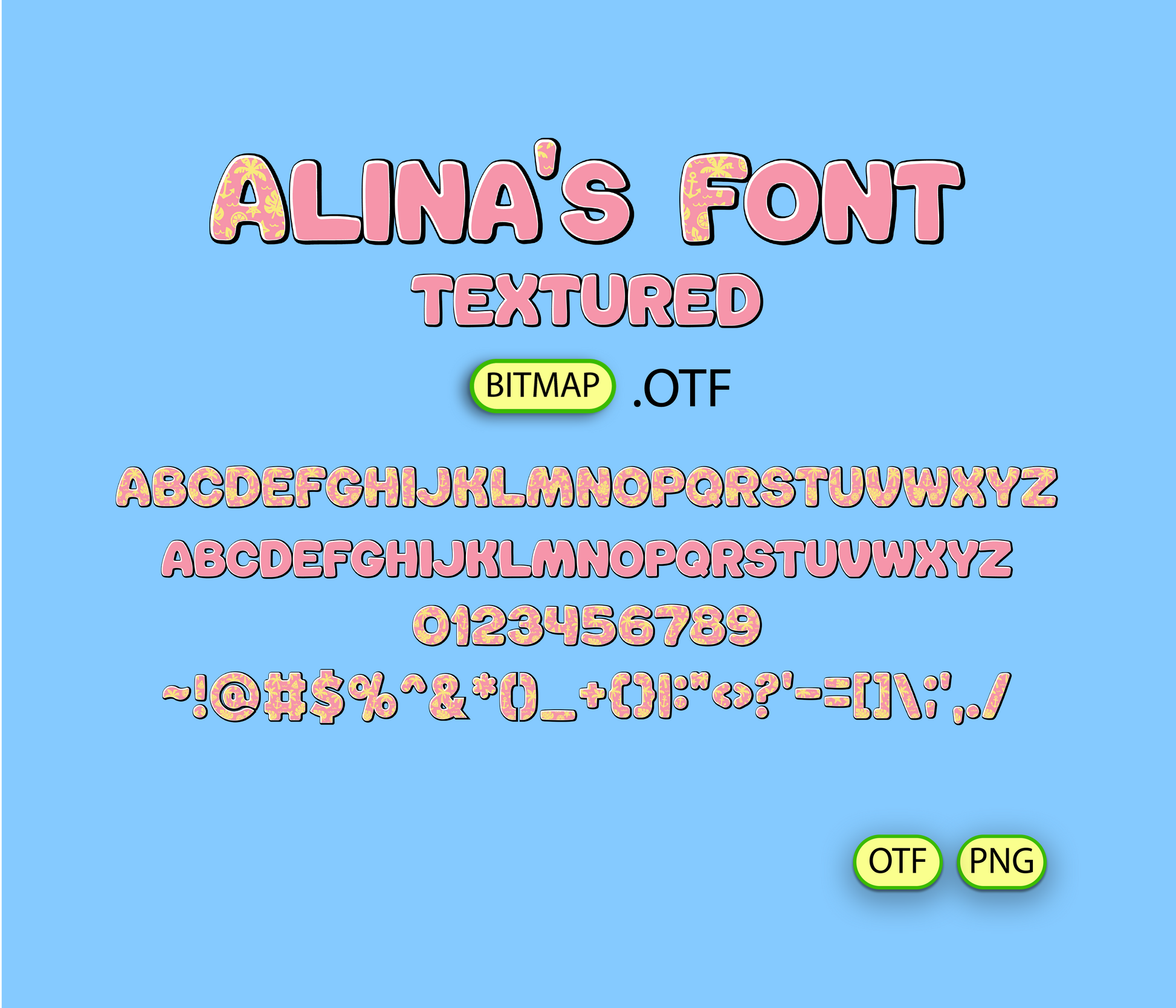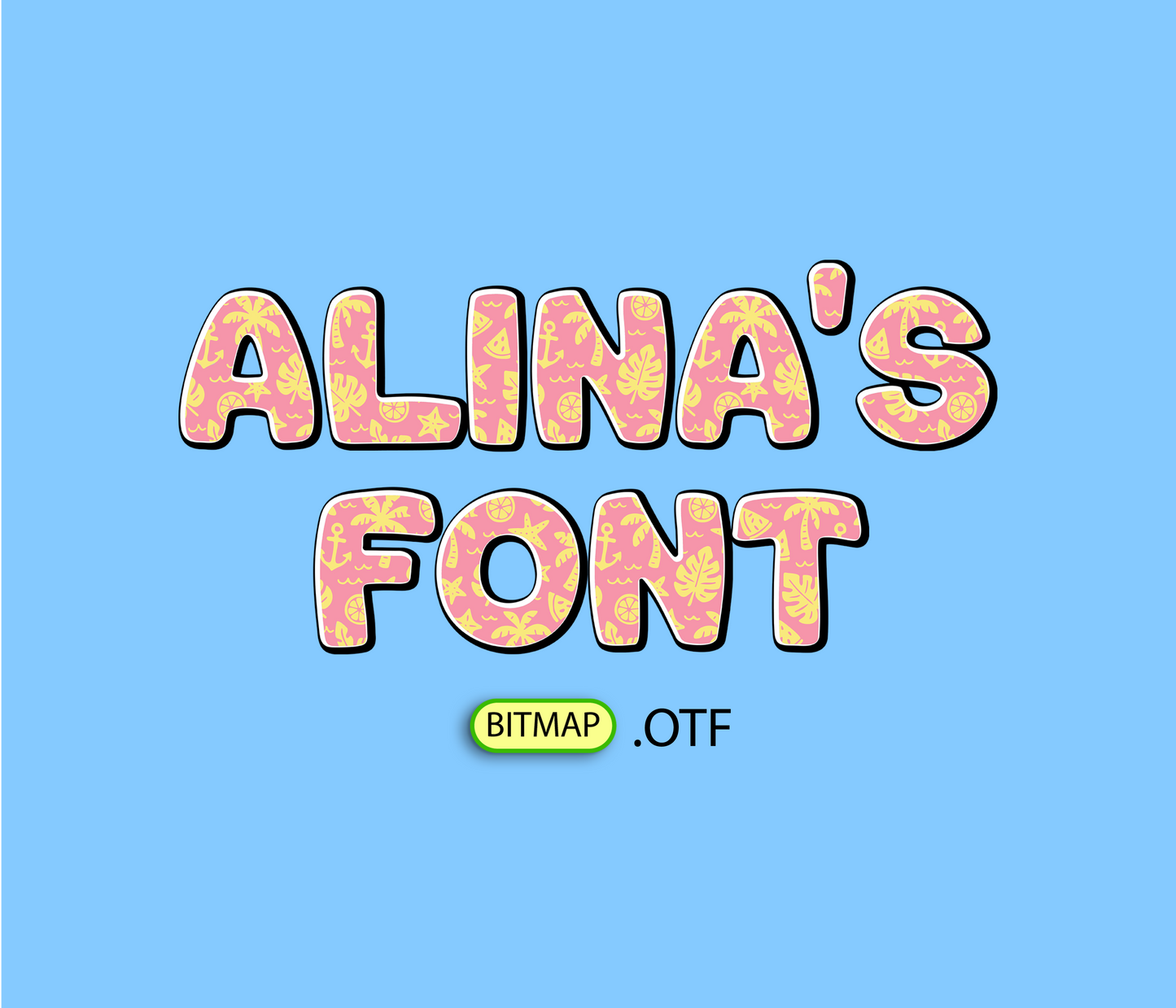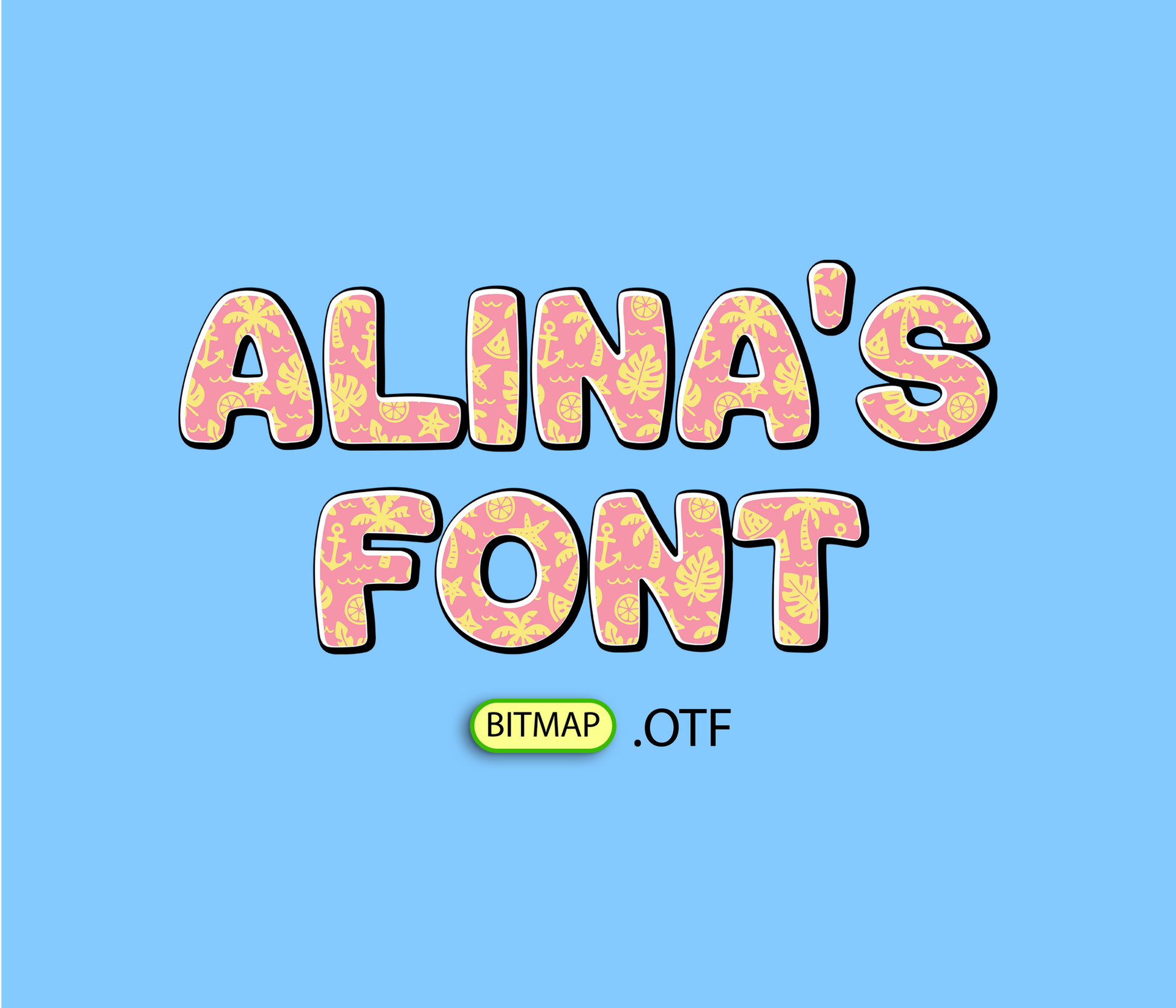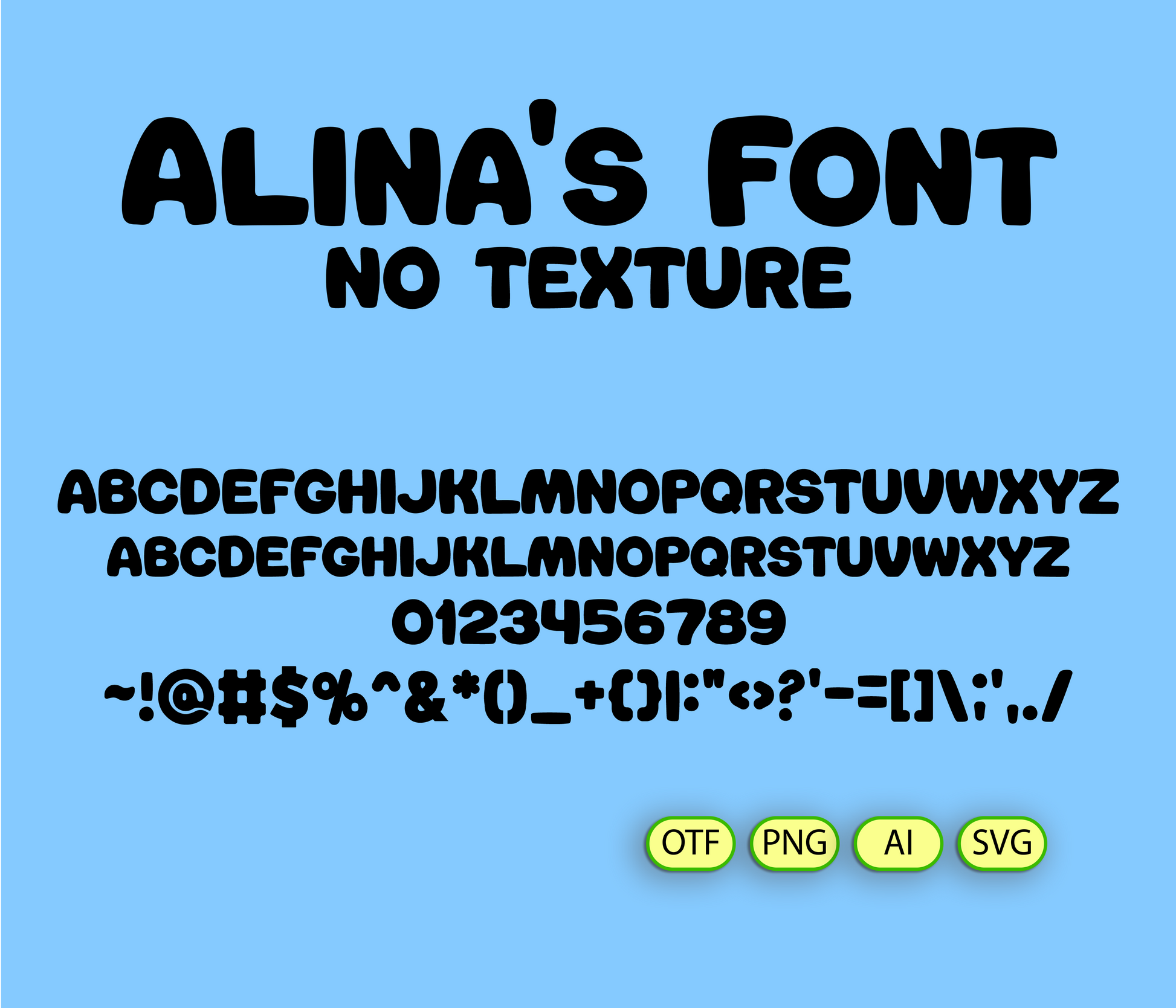
Summer Sunshine Pattern Font
Step into the bright, carefree world of vacation days with our Summer Sunshine font, capturing the essence of beach adventures and sun-soaked memories. Perfect for seasonal celebrations, travel businesses, outdoor event planners, and creative professionals, this font brings the warm, relaxed spirit of summer days to your projects. Create inviting invitations, vacation-themed merchandise, or digital content with the cheerful, radiant energy of sunshine and endless summer fun.
Our Summer Sunshine font features playful, breezy shapes and sun-kissed characters reflecting the carefree joy and warmth of the season's longest days. Ideal for:
1. Seasonal Promotions: Create attention-grabbing invites, posters, and banners for pool parties, beach gatherings, and summer festivals
2. Travel Design: Perfect for vacation packages, resort marketing, and adventure-themed promotional materials
3. Digital Media: Enhance websites, blogs, and social media with sunny headers and graphics that express warmth and outdoor enjoyment
4. Retail Content: Add authentic seasonal character to shop displays, product packaging, and promotional materials for summer merchandise
5. Personal Projects: Bring sunshine charm to scrapbooking, DIY crafts, and home decor inspired by the colors and energy of summer days
Our Summer Sunshine font includes textured and non-textured variants, ensuring compatibility with all software, including Canva. This feature allows easy incorporation into designs for users of all skill levels.
Our font pays tribute to the carefree spirit of summer days, empowering your designs with its bright and cheerful spirit. Whether crafting seasonal materials, designing vacation-themed merchandise, or adding a sunny touch to personal projects, this font communicates the joy and warmth of summer. Ready to inject golden sunshine into your creations? This font is your key to seasonal, impactful design.